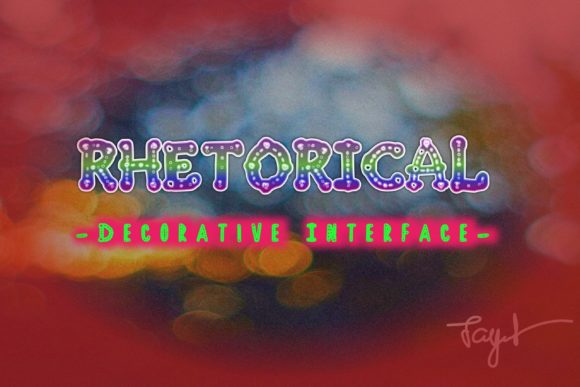
Welcome to the whimsical world of Rhetorical Font, a captivating creation from the renowned Jagat Golder. This decorative font exudes an aura of joyousness that's sure to inject a playful charm into your design projects.
Adorned with unique and quirky strokes, Rhetorical Font possesses an irresistible personality that demands attention. Its playful style is reminiscent of a mischievous sprite, eager to infuse your designs with a touch of magic. Whether you're crafting elegant stationary art, eye-catching social media posts, or any other creative endeavor, Rhetorical Font is your perfect companion.
With Rhetorical Font, you'll have at your fingertips a versatile tool that adapts seamlessly to a myriad of design needs. Its captivating letterforms lend themselves beautifully to crafting picturesque invitations, enchanting greeting cards, and captivating posters that are sure to leave a lasting impression. The possibilities are endless, limited only by the boundaries of your imagination.
But Rhetorical Font's allure extends beyond its aesthetic appeal. This font is meticulously designed to ensure effortless readability, even at smaller sizes. Its carefully crafted characters maintain their clarity and charm, making it an ideal choice for a wide range of applications, including logos, branding materials, and website design.
So, embrace the whimsical charm of Rhetorical Font and embark on a creative journey that will leave you mesmerized. Let your imagination soar as you create captivating designs that speak volumes and leave an unforgettable impression.